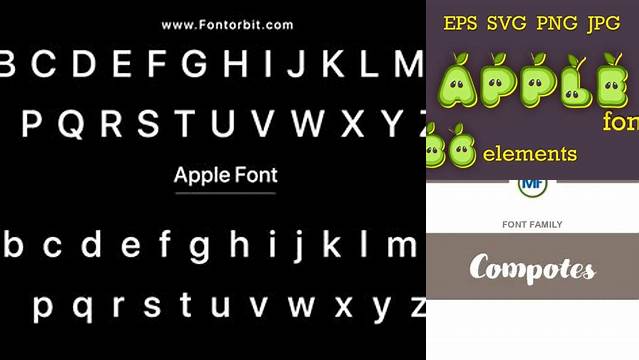
Compotes Apple Font Free Download & Guide
Hey design enthusiasts! Ever wanted to add a touch of freshness and a bit of whimsy to your projects? Well, look no further! We're diving headfirst into the world of the Compotes Apple Font, a delightful typeface that's as charming as a basket of freshly picked apples. In this comprehensive guide, we'll cover everything you need to know, from the free download process to how to make the most of this delicious font in your designs. So, buckle up, grab a virtual apple, and let's get started!
What Makes the Compotes Apple Font So Special?
Okay, guys, let's be real. The design world is overflowing with fonts, so what makes the Compotes Apple Font stand out from the crowd? First off, its playful and approachable style. Think of it as the handwritten note from your favorite farmer's market. The Compotes Apple Font is all about conveying a sense of warmth, friendliness, and a touch of nostalgia. It's not just a font; it's an experience. Whether you're designing a logo for a farm-to-table restaurant or creating invitations for a rustic wedding, this font adds that perfect finishing touch. Imagine your project with the charm of a vintage apple crate label. The font's unique characteristics are not just limited to the alphabet, it also includes different numbers, symbols, and ligatures, allowing for a creative experience when designing your content. Compotes Apple Font is especially useful for projects that aim for a friendly and approachable vibe. This font will make your work appear more appealing and approachable. The font has a lot of character and is a fantastic addition to any designer's toolkit. This font will certainly provide a unique and charming look, ensuring your design stands out. Compotes Apple Font's versatility allows it to be used in various contexts. You can use it for branding, web design, posters, and social media graphics. No matter the project, this font is guaranteed to leave a lasting impression on your audience.
Font Features and Style
The Compotes Apple Font is designed with a unique, slightly rounded and casual style that mimics the feel of handwriting. This style choice makes it incredibly versatile for various design applications. Let’s delve into what makes it special.
- Handwritten Feel: The font's design emulates the look and feel of handwritten text. The strokes are natural and flowing, giving a sense of authenticity and warmth to any design. This is a significant advantage when the goal is to connect with the audience on a personal level.
- Rounded Design: The rounded edges of the characters give the font a soft and inviting appearance. It helps create a friendly and welcoming atmosphere, perfect for brands wanting to convey a sense of approachability and ease.
- Versatile Applications: Due to its unique style, the Compotes Apple Font works well across various design projects. From branding and packaging to web design and social media content, it adds a unique touch that captures attention.
Compotes Apple Font is all about connecting with your audience on a personal level. It’s the perfect choice when you want to inject personality and a touch of authenticity into your design work. Its friendly appearance makes your design memorable and appealing. The features make this font a go-to resource for designers looking to create something beautiful. The font provides designers with a unique tool that is both engaging and versatile. This font's characteristics allow designers to craft projects that resonate with viewers and convey a sense of warmth. It is more than just a font, it is a storytelling tool.
How to Use the Compotes Apple Font in Your Designs
Now that you've got the font, it's time to put it to work! The Compotes Apple Font is perfect for adding a touch of personality to a variety of projects. Let's explore some creative ways to use it.
Design Ideas & Best Practices
- Logo Design: This font can be used in logos, giving a friendly and memorable look. Use it for logos of businesses that aim for a friendly and approachable feel. The font's unique style allows for a professional and inviting appearance.
Conclusion: Embrace the Charm of the Compotes Apple Font
And there you have it! You're now armed with everything you need to download and creatively use the Compotes Apple Font. This font is more than just a typeface; it's a tool that allows you to convey warmth and authenticity in your designs. Whether you're designing for a client or working on a personal project, this font is sure to add a touch of apple-infused charm. So, go forth, download the font, and start creating designs that are as sweet and delightful as a freshly picked apple! Happy designing, everyone!